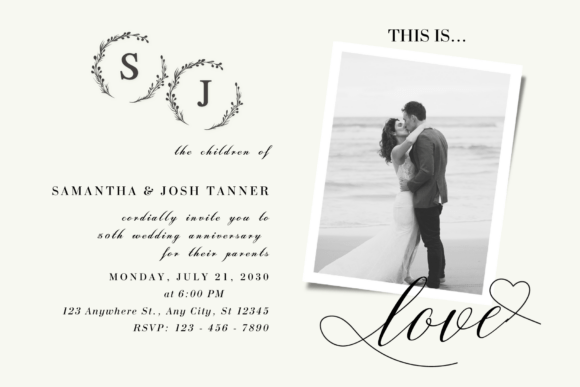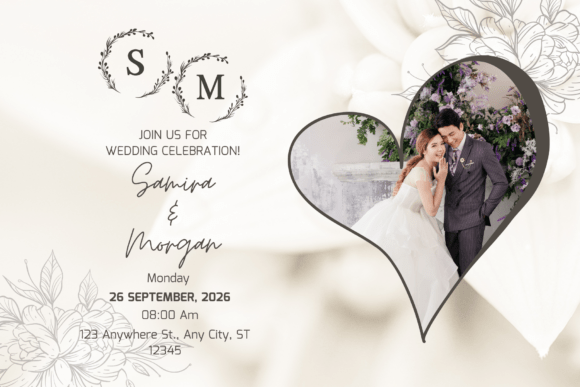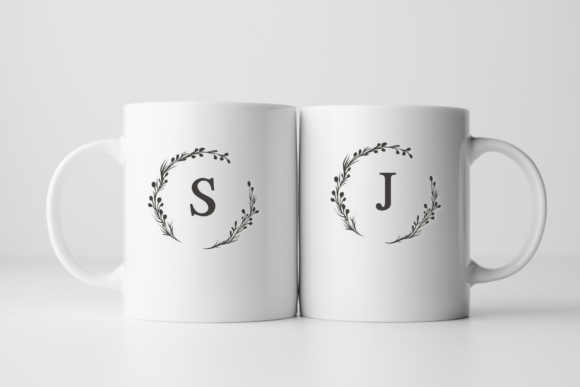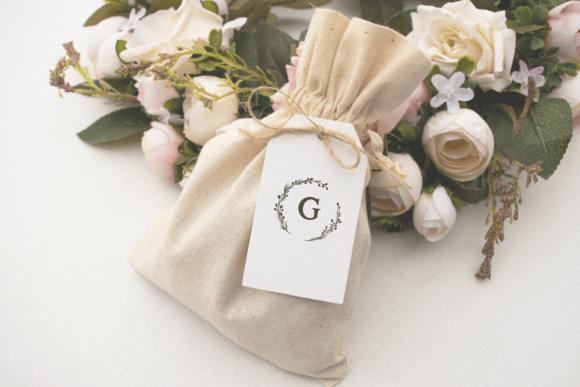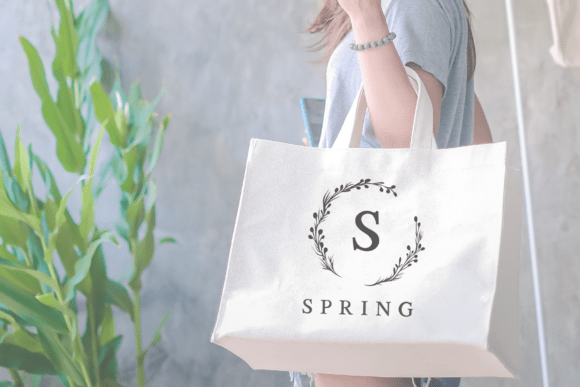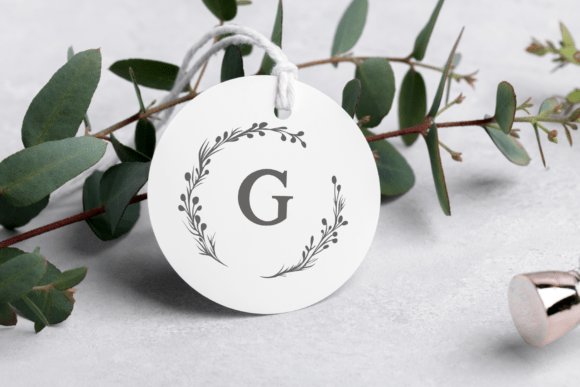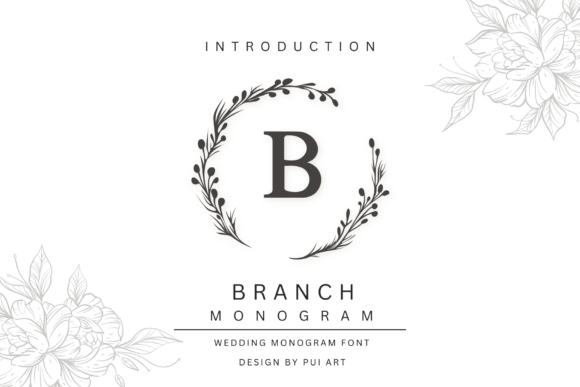
Introducing Branch Monogram Font: Elevate Your Designs with Elegance
Are you a designer or crafter looking for a unique and sophisticated font to add a touch of charm to your creations? Look no further than the Branch Monogram Font. This elegant font is specifically designed for special occasions, featuring decorative letters inside a beautiful leaf frame that will make your invitations, wedding cards, and other celebratory materials stand out.
The Perfect Font for Special Occasions
The Branch Monogram Font is crafted with love and care, making it an ideal choice for designers and crafters who want to create stunning and memorable designs. The font’s decorative letters are intricately designed to fit perfectly inside a beautiful leaf frame, creating a truly unique and eye-catching effect. Whether you’re designing invitations for a wedding, baby shower, or birthday party, this font is sure to impress.
Add a Touch of Charm and Sophistication
The Branch Monogram Font is more than just a font – it’s a statement piece. It adds a touch of charm and sophistication to any celebration, making it perfect for designers and crafters who want to create high-end designs. With this font, you can create beautiful and elegant invitations, wedding cards, and other celebratory materials that will leave a lasting impression on your clients or loved ones.
Key Features of Branch Monogram Font
- Elegant Design: The Branch Monogram Font features decorative letters inside a beautiful leaf frame, making it perfect for special occasions.
- Unique and Eye-Catching: The font’s unique design makes it stand out from other fonts, ensuring that your designs will be noticed.
- High-Quality: The font is crafted with love and care, ensuring that it is of high quality and will work perfectly in your designs.
- Versatile: The Branch Monogram Font can be used for a variety of special occasions, including weddings, baby showers, and birthday parties.
Tips for Getting the Most Out of Branch Monogram Font
- Pair it with Other Fonts: The Branch Monogram Font pairs well with other fonts, so don’t be afraid to experiment with different combinations.
- Use it for Headlines: The font’s decorative letters make it perfect for headlines, so use it to add a touch of elegance to your designs.
- Experiment with Colors: The font looks great in a variety of colors, so experiment with different colors to find the one that works best for your design.
The Branch Monogram Font is a beautiful and elegant font that is perfect for designers and crafters who want to add a touch of charm and sophistication to their designs. With its unique and eye-catching design, high-quality craftsmanship, and versatility, this font is sure to become a favorite in your design arsenal. So why wait? Download the Branch Monogram Font today and start creating stunning designs that will leave a lasting impression.